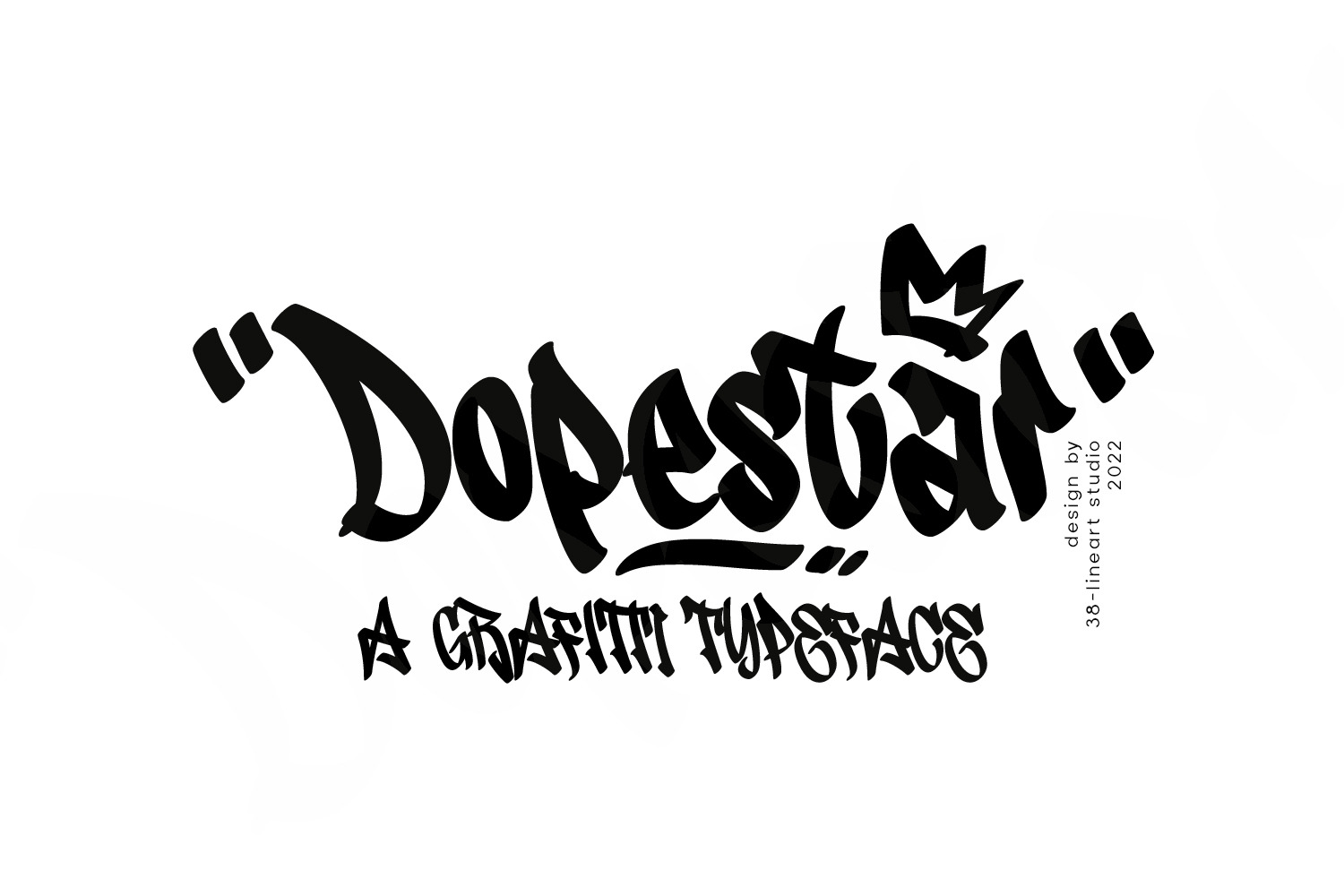
Street art has become so inspiring that it's been featured on a range of mediums from advertising to album art. Thanks to the emergence of street art in the mainstream media.
Dopestar is a heavy font that has a bold grafitti feel whilst being super clear to read, Dopestar is certainly versatile.
Dopestar is a great typeface for display and it comes with a full set of characters with loads of variants and all the punctuation you'll need.